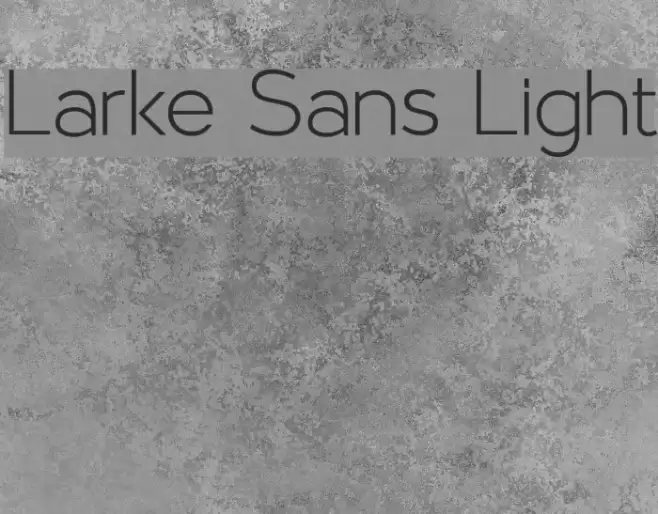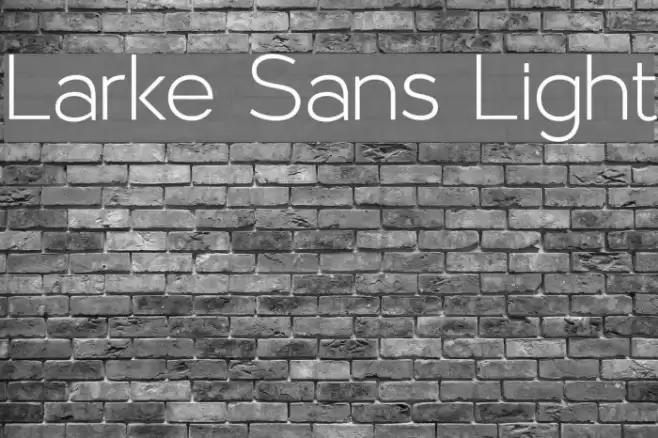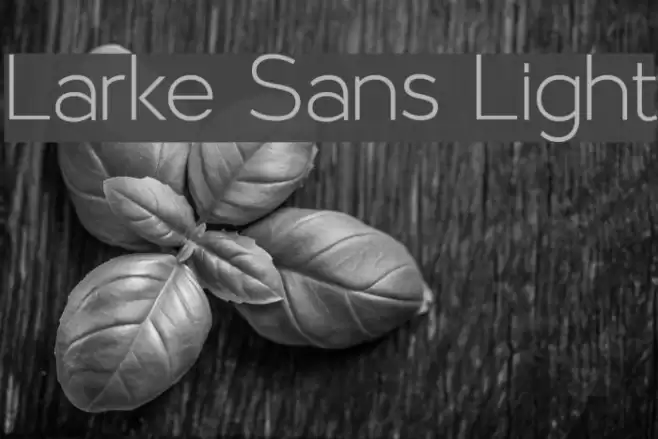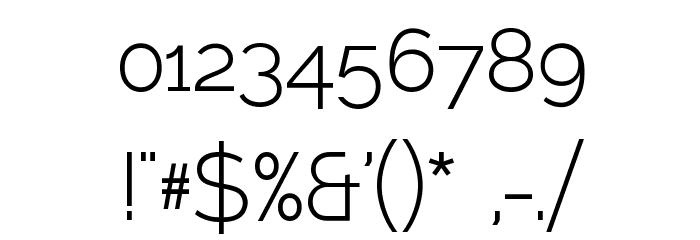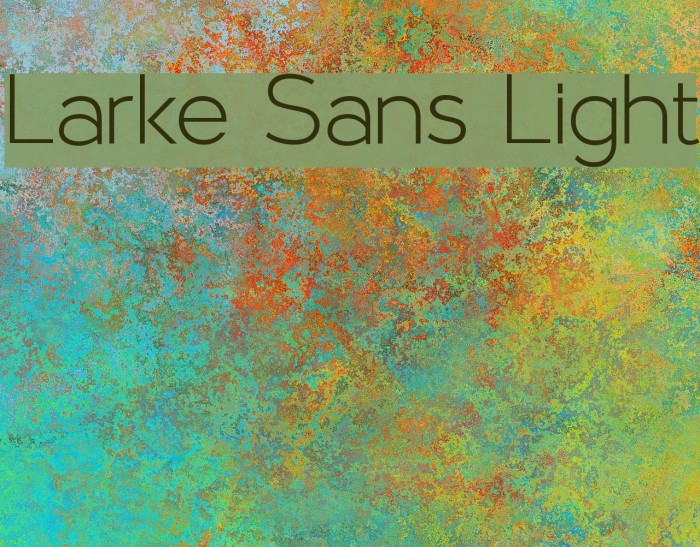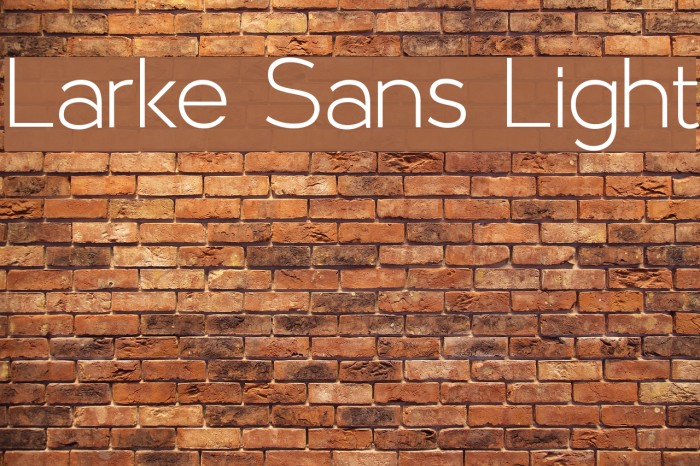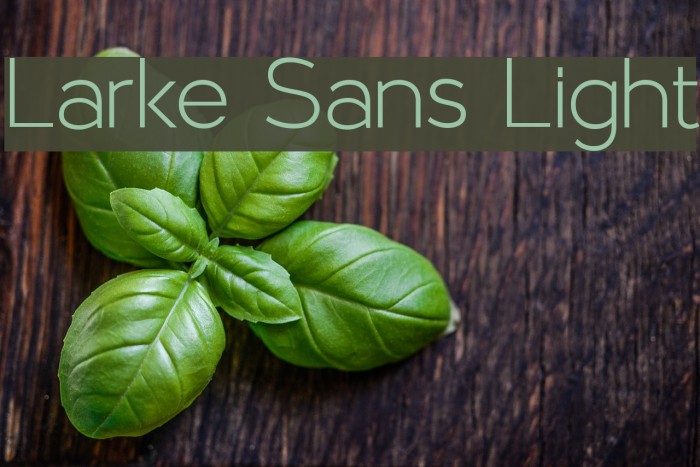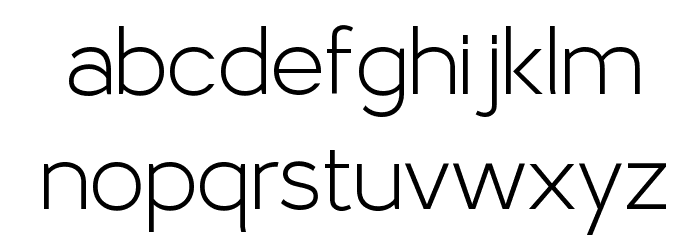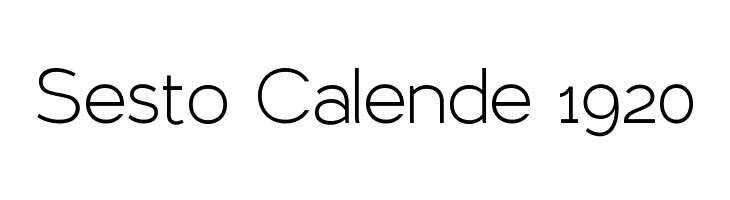
Larke Sans Light
This font features a clean and minimalist design, characterized by its geometric shapes and uniform line thickness. The uppercase and lowercase letters maintain a consistent height, creating a harmonious and balanced appearance. The numerals are straightforward and align well with the overall aesthetic, while the special characters are crafted with precision, ensuring clarity and readability. The font's simplicity and elegance make it versatile for various design applications, offering a modern and professional look.
A clean, minimalist sans-serif font with geometric shapes and uniform line thickness.
- Proposed Projects: Ideal for branding, corporate design, web design, and editorial layouts where a modern and professional appearance is desired.